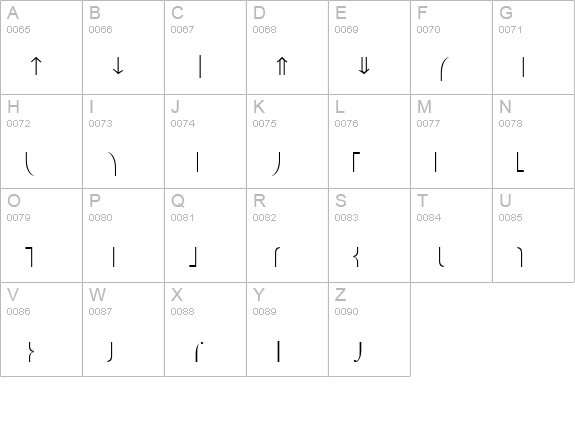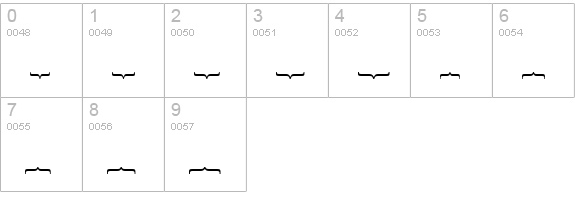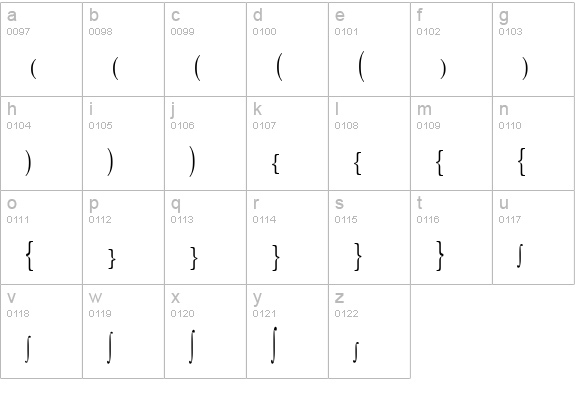
Bittle Plain Font Details
Bittle Plain font is a modern and sleek typeface that effortlessly combines elegance with simplicity. With its clean lines and minimalist design, this font is perfect for a wide range of projects, from branding to editorial design. The versatility of Bittle Plain font makes it a great choice for both digital and print applications. The best part? Bittle Plain font is completely free to download at FontsMarket.com. You can easily access this stylish and sophisticated font without any cost, making it a valuable addition to your font library. Whether you're a designer looking to enhance your creative projects or a business owner in need of a professional font for your branding, Bittle Plain font is the perfect choice. Download it now and elevate your designs with this stunning typeface.